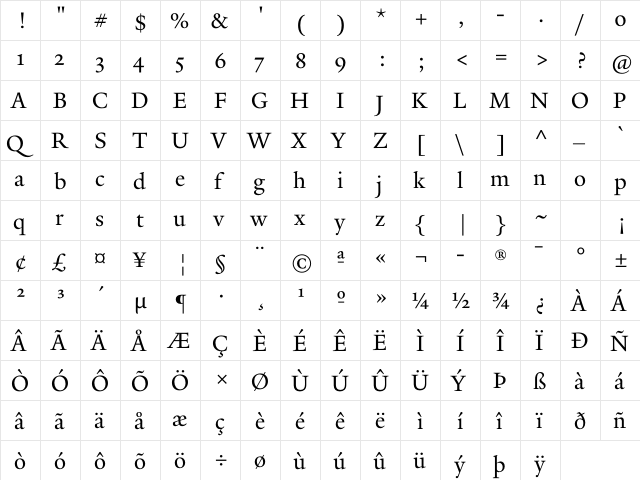
YaleCFF Regular
| Version | Version 1.1 (Rev 2) | By Matthew Carter | Carter & Cone Type 2007 | Homemade OpenType version |
Design Context for YaleCFF Typeface
YaleCFF offers clean, dependable letterforms without strong stylistic allegiance, making it a practical choice for designers who need flexibility.